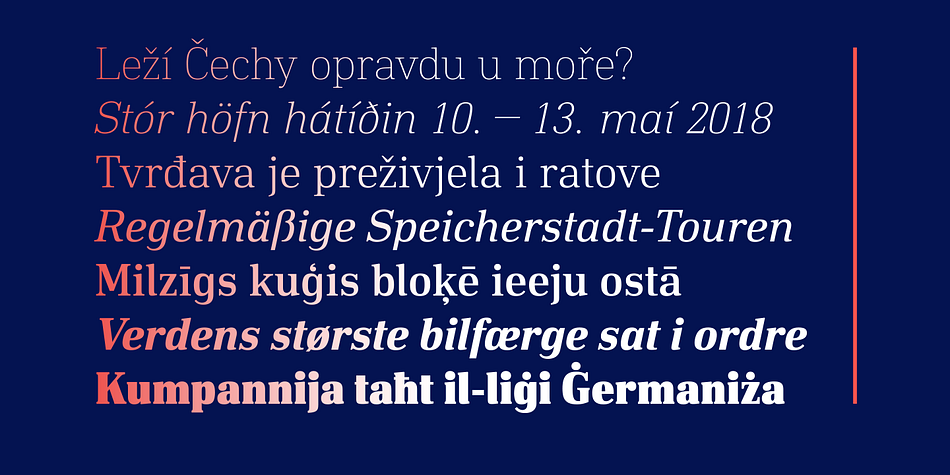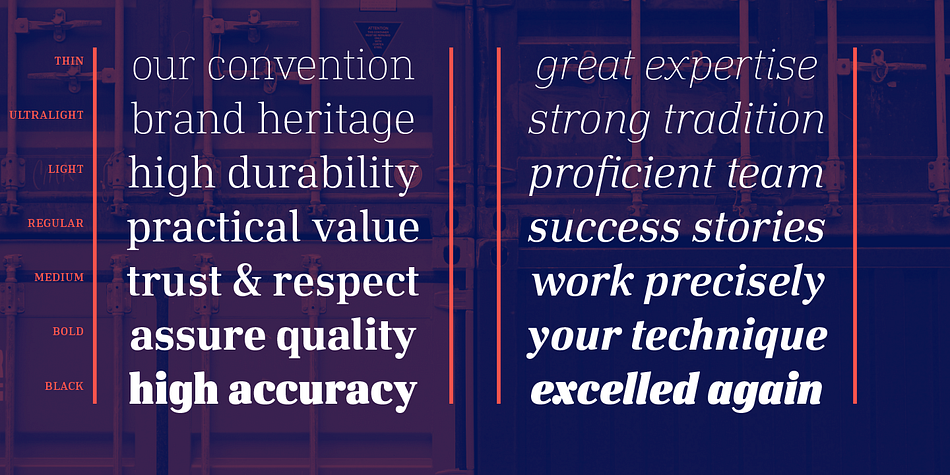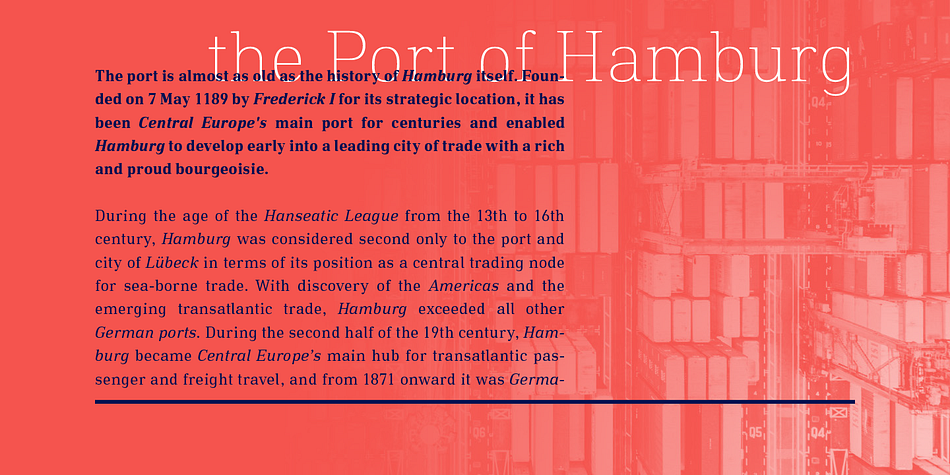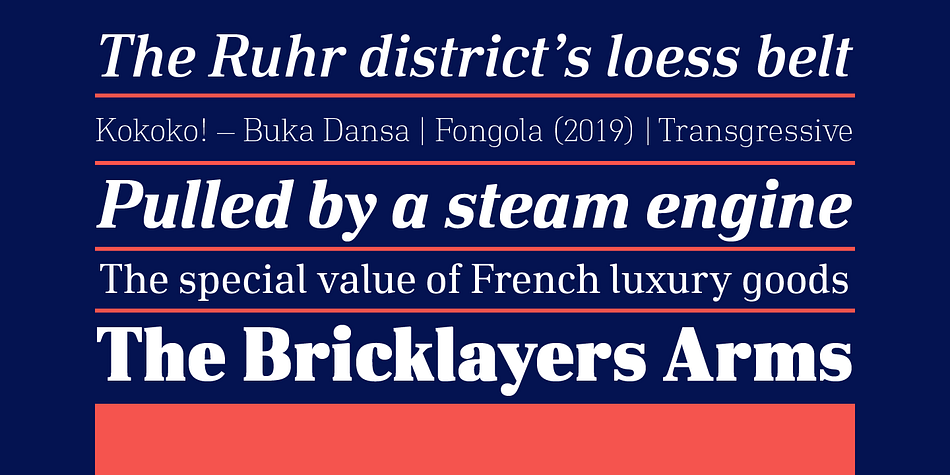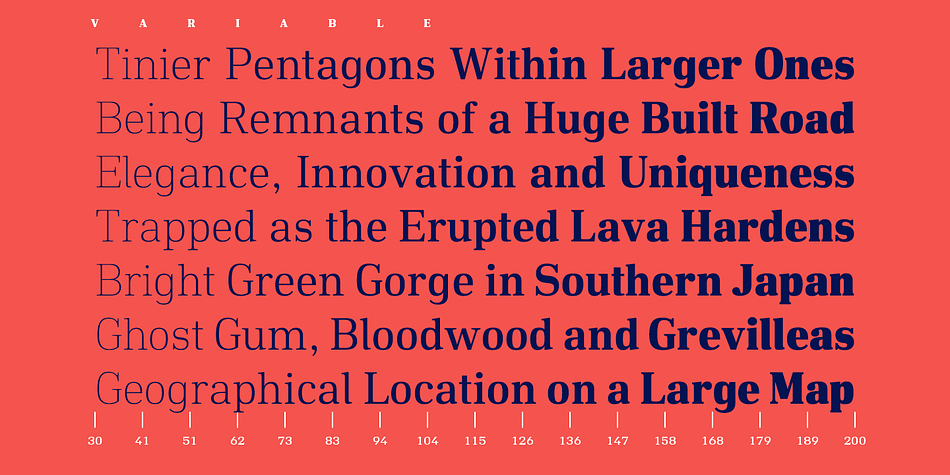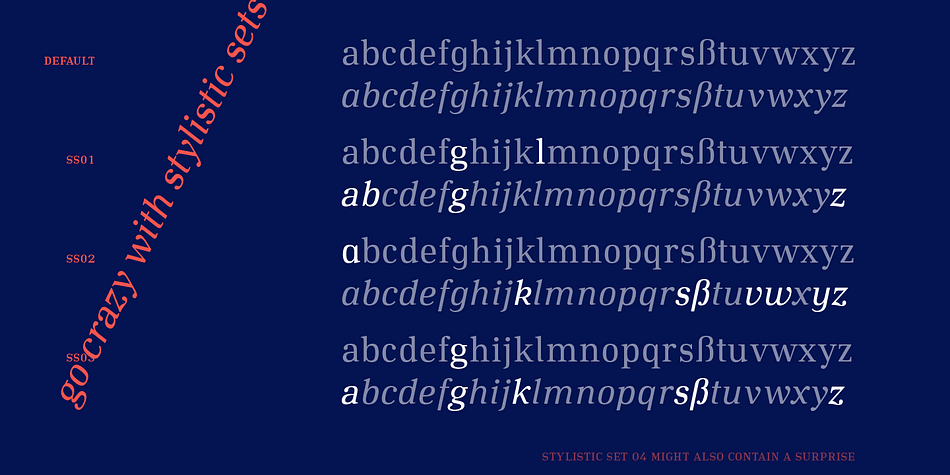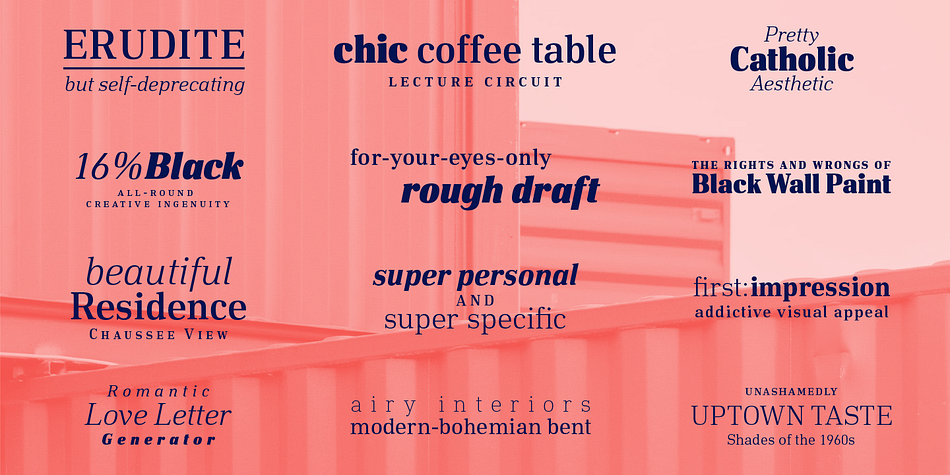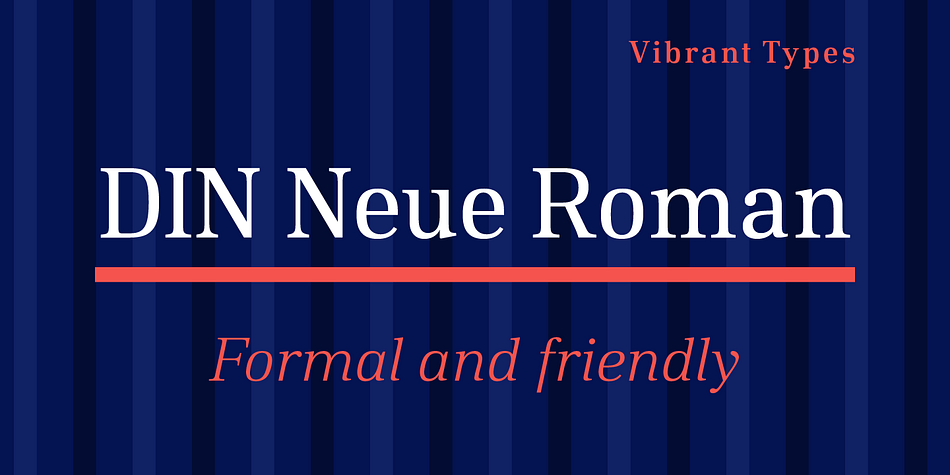
Designed by Philip Lammert, DIN Neue Roman is a serif font family. This typeface has sixteen styles and was published by Vibrant Types.
The DIN Neue Roman adds something new to the established concept of the DIN 1451 type’s technical origin. As a serif counterpart it leaves its static appeal to bring some friendliness into this industrial idea. With more contrast than a slab serif and the dynamic stroke of transitional type DIN Neue Roman defies all conventions, but keeps its legibility.
To have enough resources for diverse and complex typography this type family offers 7 weights with italics, small caps and all kind of opentype features.
Type designer Philip Lammert likes to play with the great potential of contradictions. That brought him to this design combining two essentially different classics. DIN Neue Roman is part of his 2015’s master thesis at the HAW Hamburg which was supervised by Prof. Jovica Veljovic.